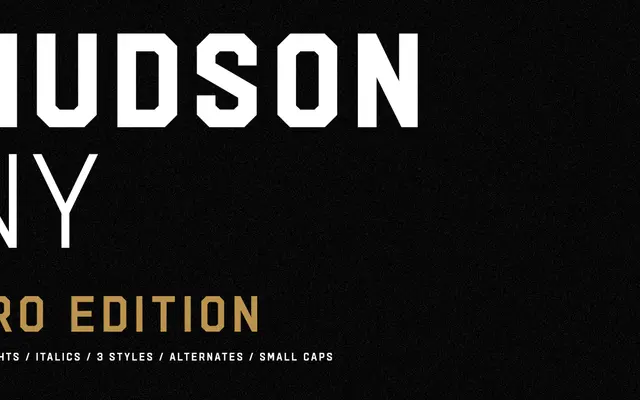
Hudson NY Pro
A three-style display family spanning sans, serif and slab cuts, each offered in six weights with italics, small caps and ten stylistic sets.
An expanded reworking of Arkitype's original Hudson NY, the Pro edition rebuilds all glyphs from scratch and adds six weights plus italics across the sans, serif and slab sub-families. OpenType features include small caps, small caps from capitals, and ten stylistic sets covering alternate forms for letters such as B, K, O, R, S and U. Arkitype position it for sports, beverage and entertainment branding where a versatile display family is needed across a single consistent visual language.
Hudson NY Pro is a display family with three distinct sub-styles (sans, serif, slab), designed for headline use in sports, beverage and entertainment contexts, with strong stylistic alternate options and a broad weight range suited to expressive, large-scale applications.